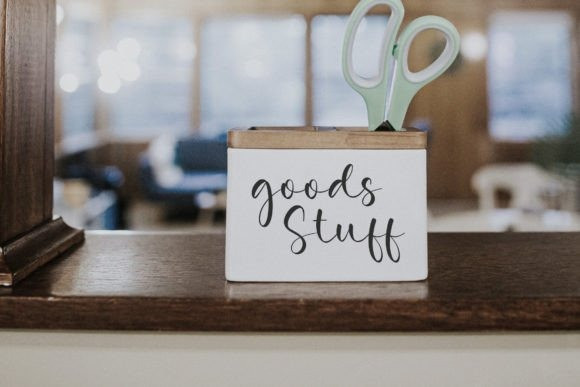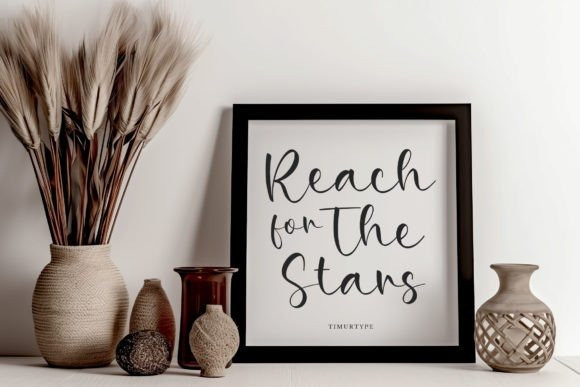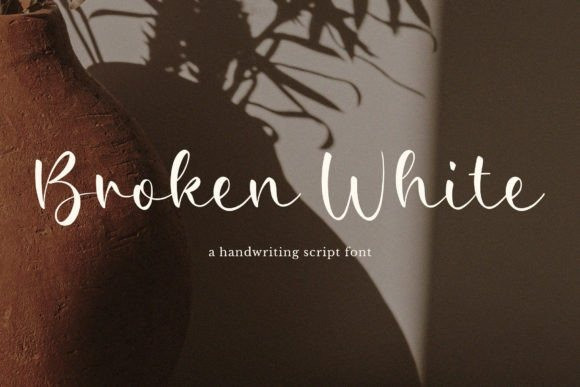
Broken White Font
Broken White Font is a handwritten script font that is perfect for product packaging, branding project, magazines, social media, weddings, or just used to express words above the background.